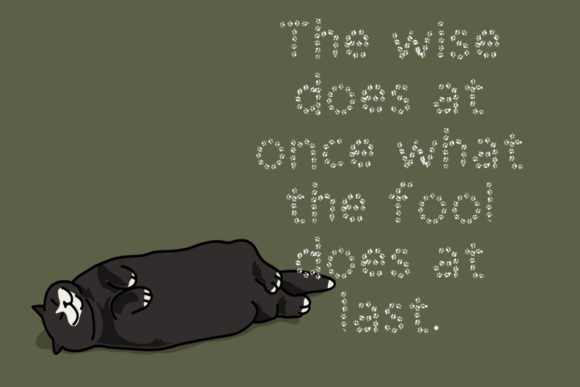
Introduction to Ristea Catfoot Font Font
Fonts play a crucial role in design, and the Ristea Catfoot Font font is a typeface that brings both character and versatility to any project. Whether you’re working on a branding project, a website, or a print design, the Ristea Catfoot Font font offers a unique style that can elevate your work.
Cute Font is a fun and quirky decorative font.
Add it confidently to your creative projects and you will love the results .
Key Features of Ristea Catfoot Font Font
Why Choose Ristea Catfoot Font Font?
The Ristea Catfoot Font font is more than just a typeface – it’s a design tool that helps you communicate your message with style and clarity. Its unique character set and versatile design make it suitable for a wide range of applications, from elegant invitations to bold headlines.
With its carefully crafted letterforms and balanced proportions, the Ristea Catfoot Font font ensures readability and visual appeal across all mediums.
What makes Ristea Catfoot Font font special?
The Ristea Catfoot Font font stands out with its unique design, exceptional readability, and versatility across various design applications.